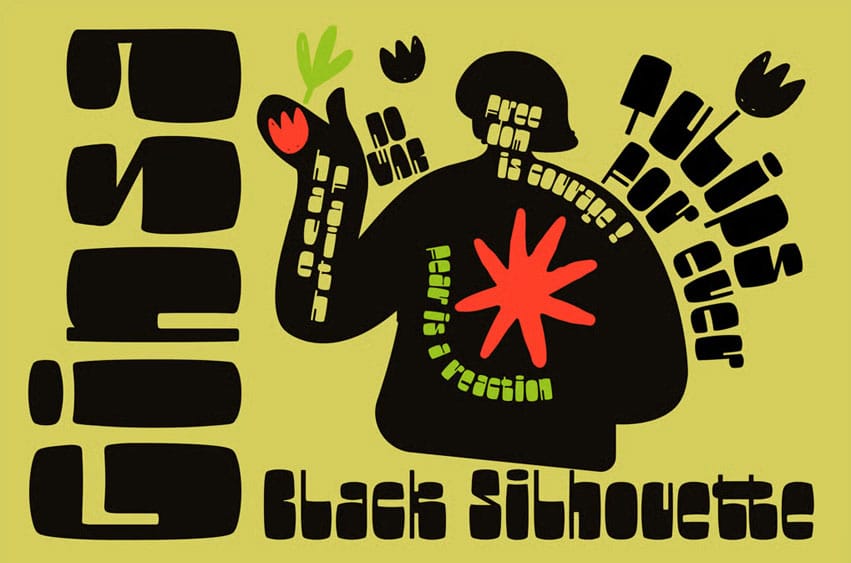
Ginsa Silhouette Font is a stylized cut-out typeface that captures the timeless appeal of analog aesthetics. It complements Matisse-inspired collages and cut-out designs beautifully. While it may not always be the most legible, this very trait adds to its distinctive character. It’s an ideal font for creating unique designs with an authentic, analog vibe.
Ginsa honors handcrafted forms—imperfect, raw, and with rough edges—celebrating the beauty of human touch without concealing flaws or the irregularities of hand-drawn work. This tactile, nostalgic style embraces authenticity and the raw charm of imperfection, reminiscent of stencil printing from the 1980s. Both creatives and brands find Ginsa appealing for its crafted, genuine feel.